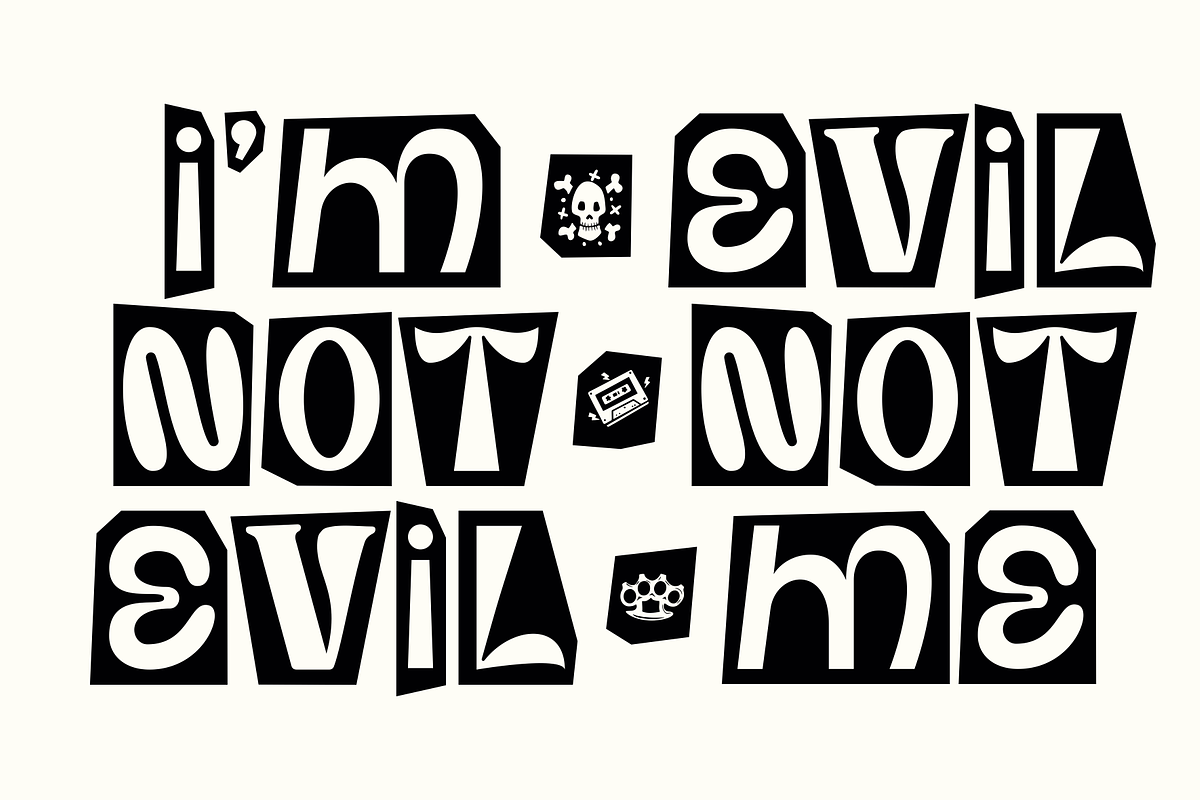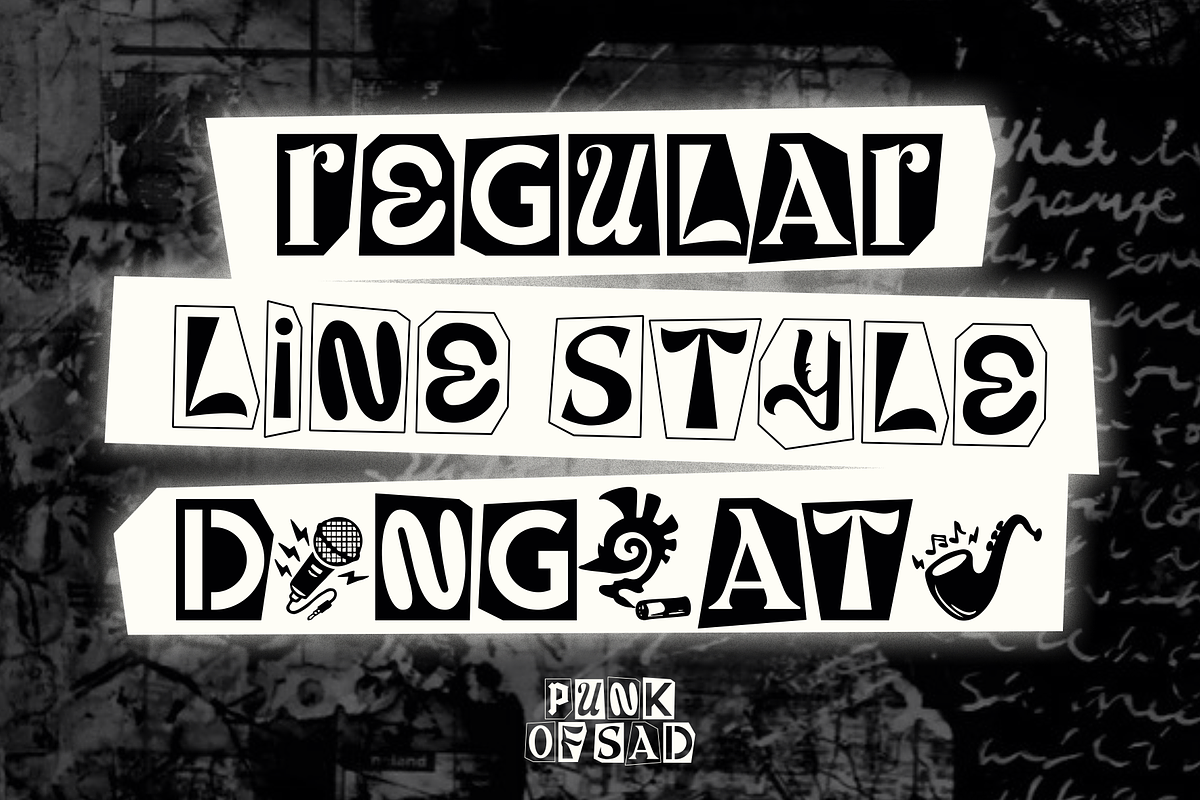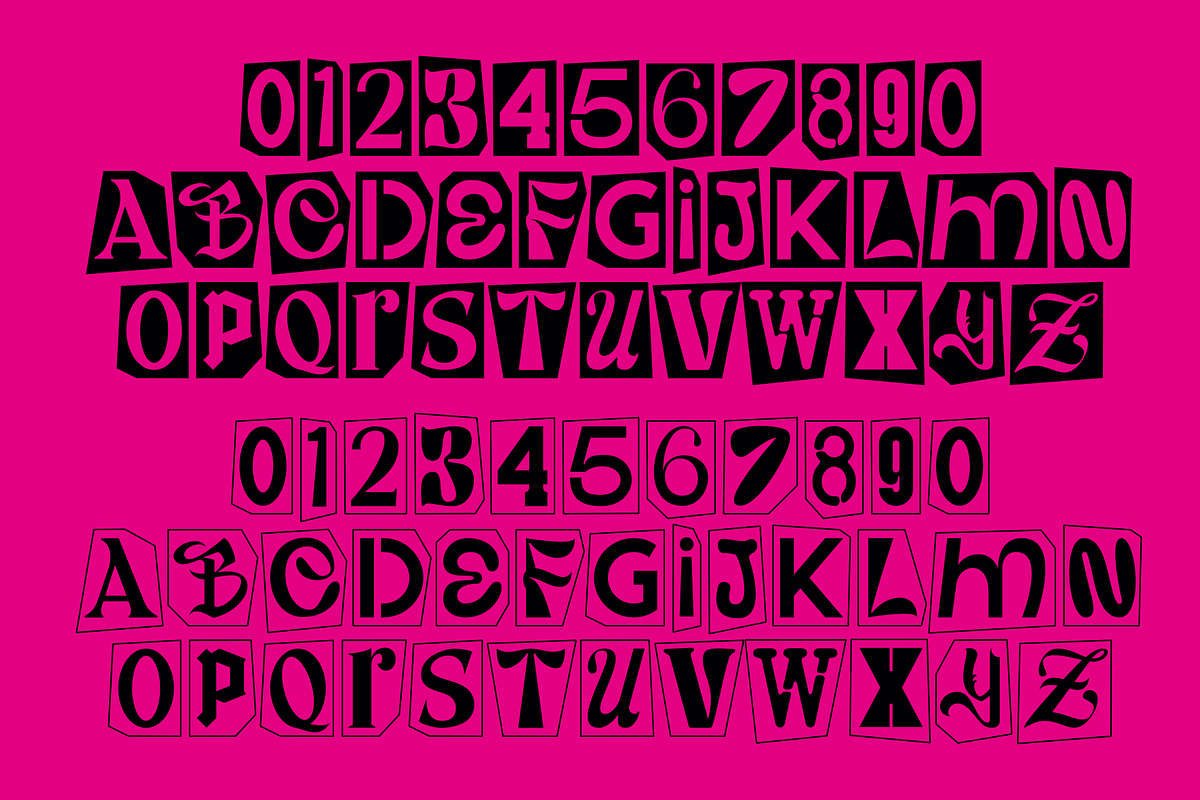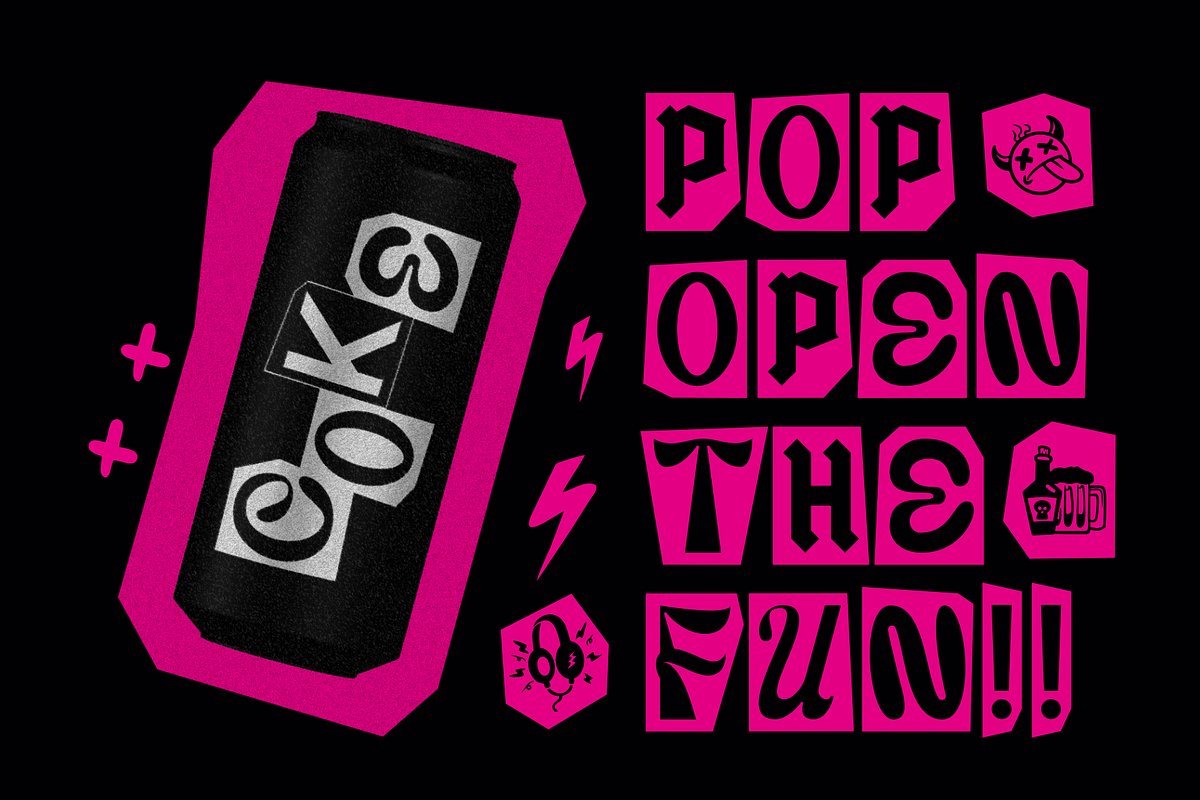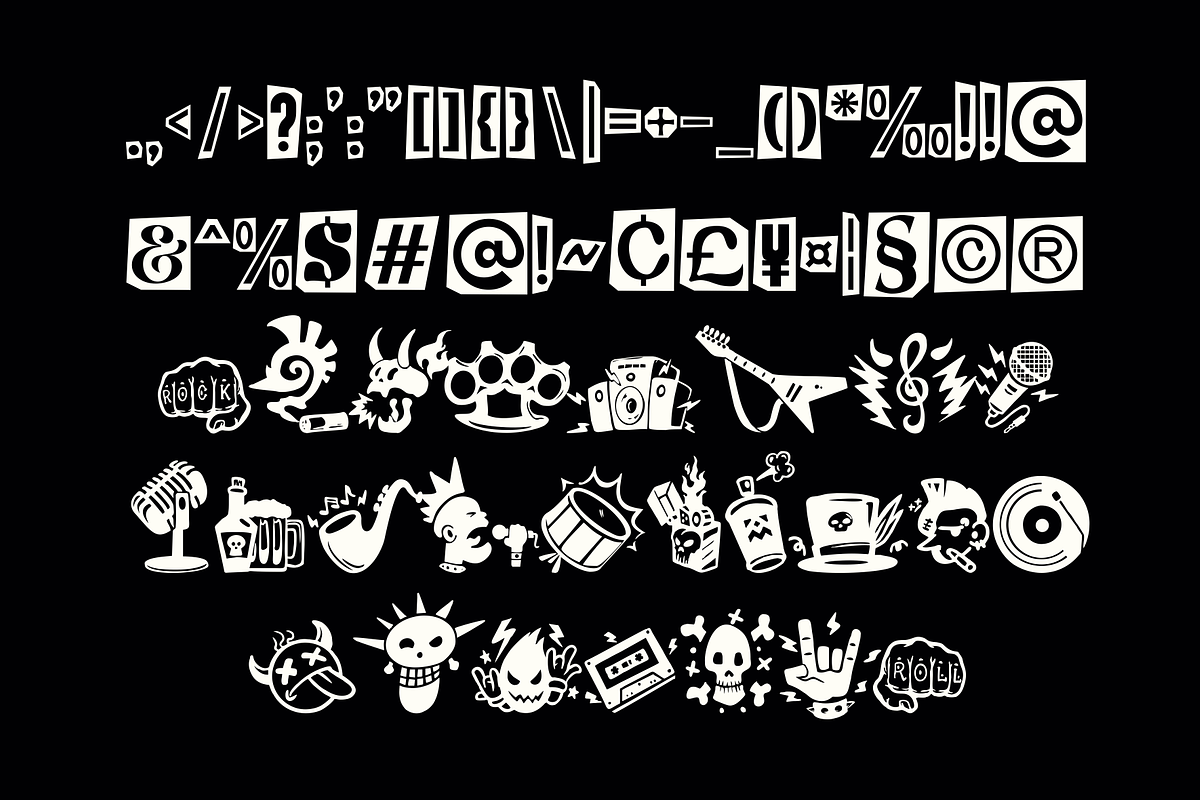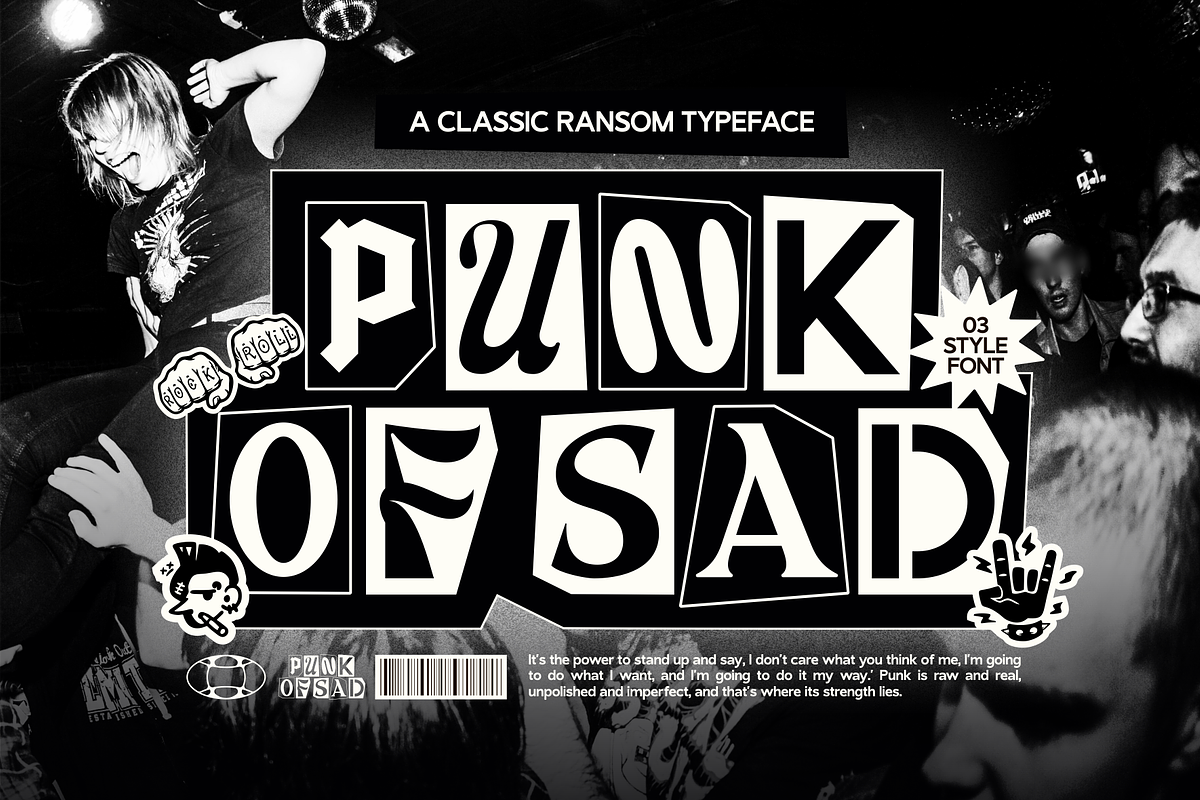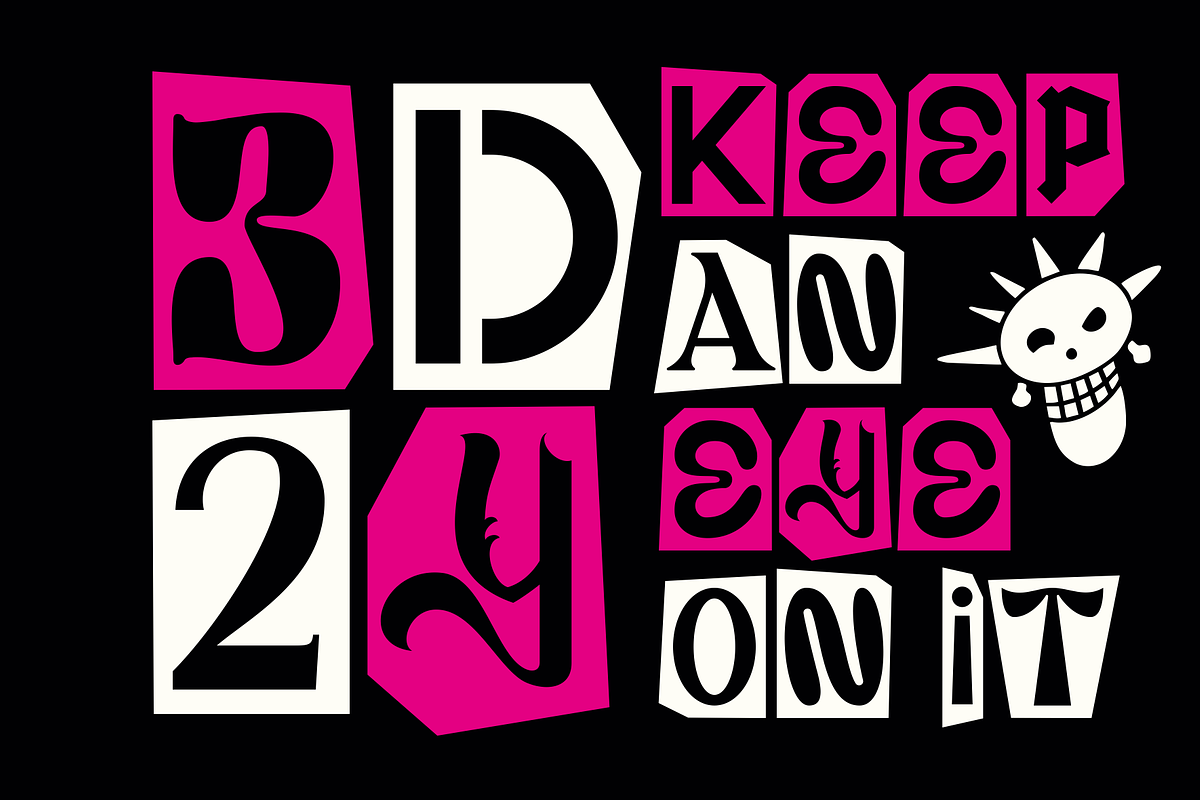
Punk Of Sad Font
Introducing Punk Of Sad is a distinctive typeface embodying the classic ransom style, blending vintage aesthetics with a gritty, rebellious edge. This font is particularly suitable for designs that require a bold, unconventional look and is available in three versatile options
- Regular: The core style, featuring rugged, cut-out letterforms reminiscent of traditional ransom notes. This style imparts a raw, intense feel, perfect for impactful visual statements.
- Line: A refined variant with outlined characters, providing a lighter, more open appearance. The Line style offers versatility, allowing it to be layered with the Regular option or used independently for a more subtle effect. *Dingbats Punk: A unique collection of punk-inspired symbols and icons, designed to complement the font's style. This option is ideal for adding decorative elements or visual interest to the overall composition. With these three options, Punk Of Sad offers designers flexibility, making it well-suited for projects that require a bold, non-traditional aesthetic, such as posters, album covers, and other creative expressions.
- Line Style
- Dingbats Punk Icon